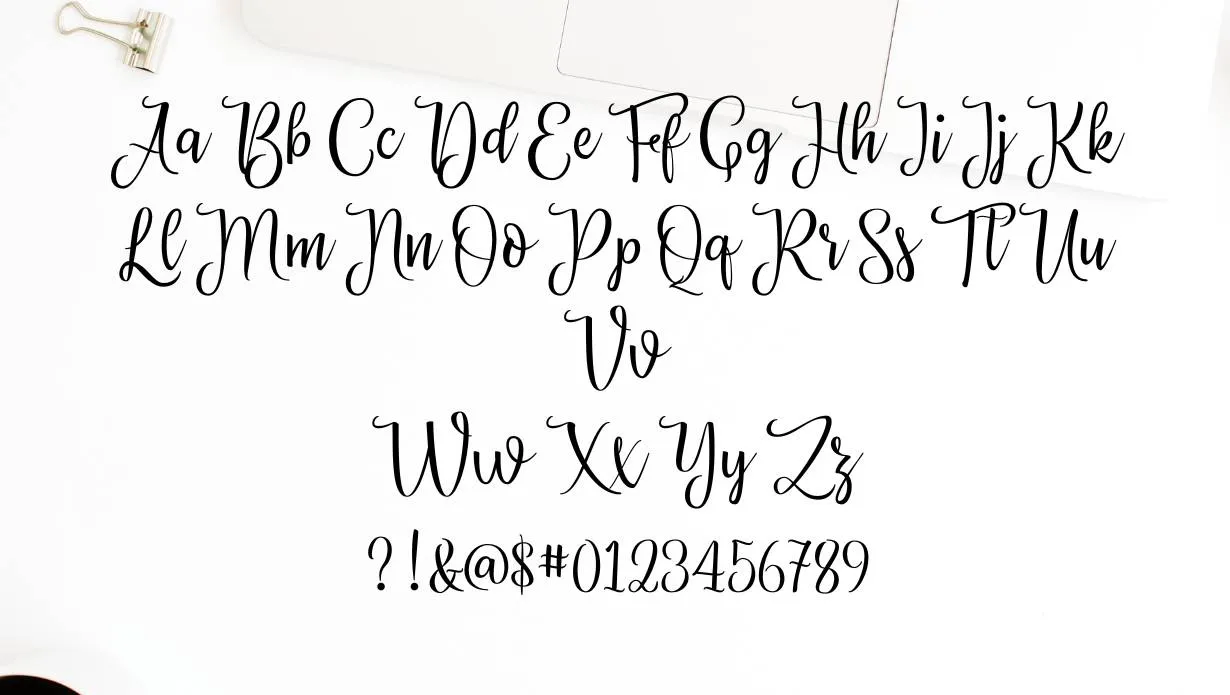
The Priscilla Font is sophisticated and script-style, perfect for wedding invitations, feminine branding, and editorial designs. It is typically found in file formats like TTF and OTF, ensuring versatility in different design applications.
Its graceful and sophisticated appearance adds a touch of romance and elegance to any text, making it perfect for projects that demand a sense of beauty and refinement.